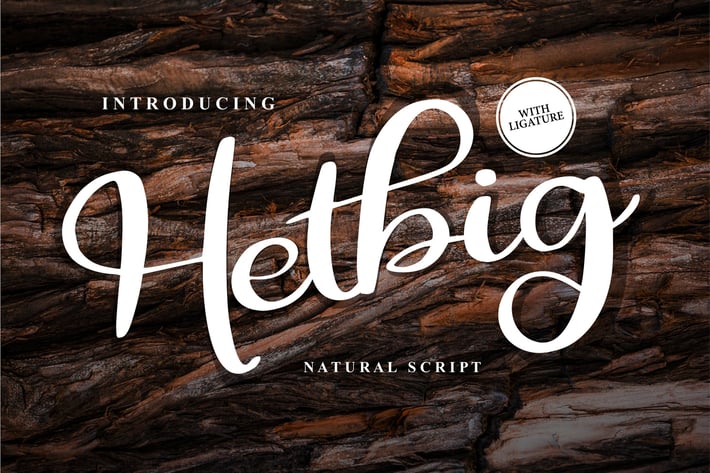
Hetbig | Natural Script Font
Hetbig | Natural Script Font with a calligraphy style, So beautiful on invitation like greeting cards, branding materials, business cards, quotes, posters, and more!